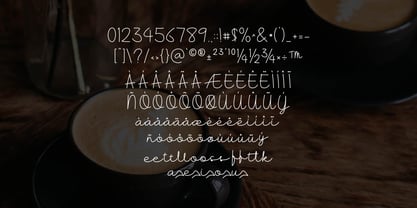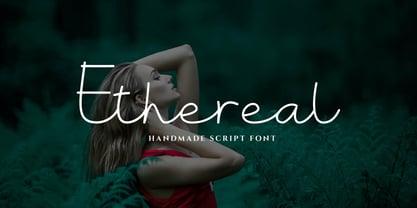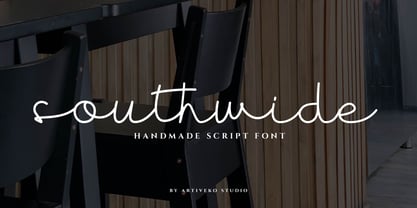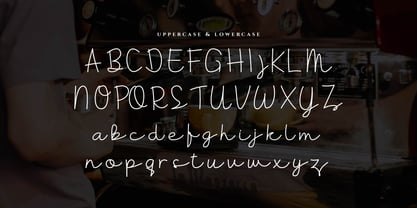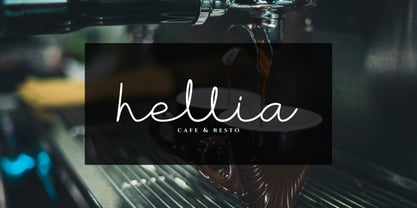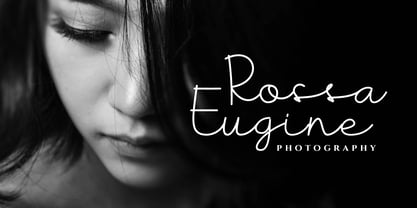
Southwide
by Artiveko
The Southwide Font Family was designed by Iwan Alwan and published by Artiveko. Southwide contains 2 styles and family package options.
Southwide is a minimalist script font designed for simplicity and elegance. With clean, flowing strokes and a handcrafted monogram feel, it’s perfect for logos, branding, wedding elements, stationery, and signature-style visuals. Each letter connects with soft curves and thoughtful spacing, offering a refined yet personal touch.
This font includes uppercase and lowercase characters, multilingual support, and smooth ligatures—ideal for creating stylish monograms and elegant wordmarks. Southwide brings sophistication through subtlety, making it the perfect choice for modern, understated design.